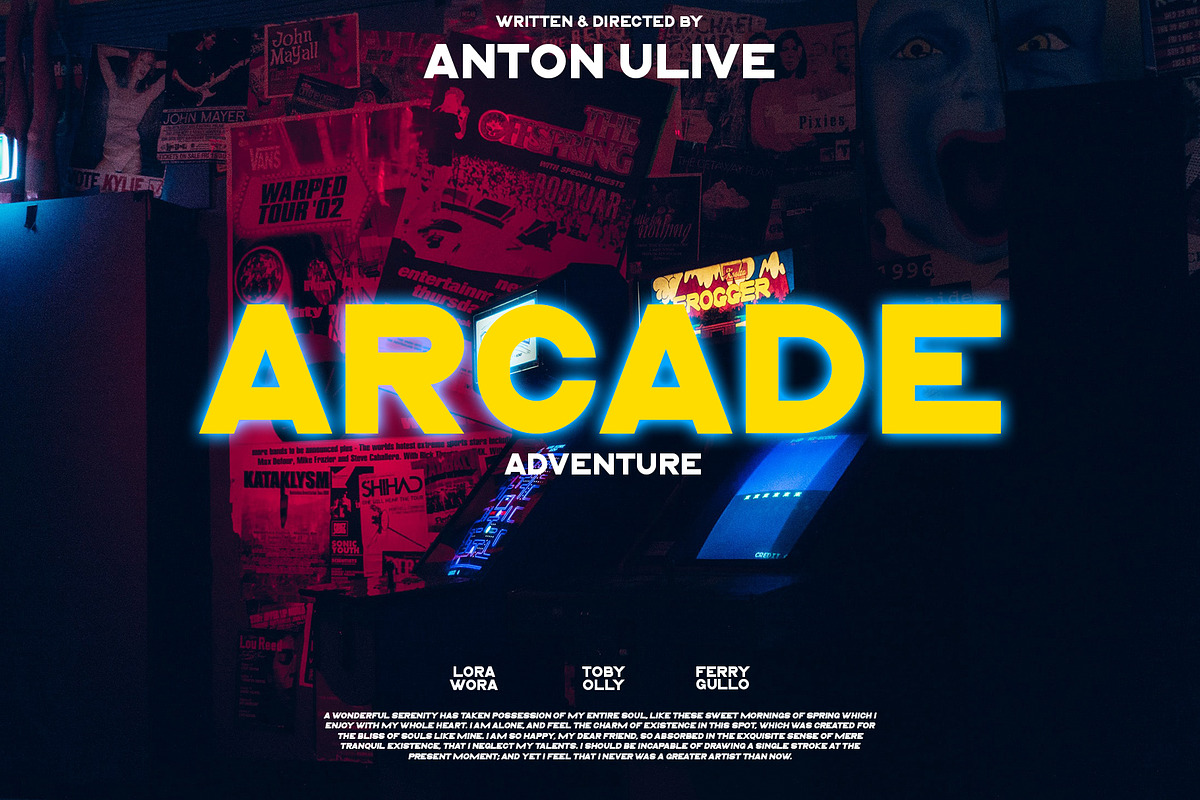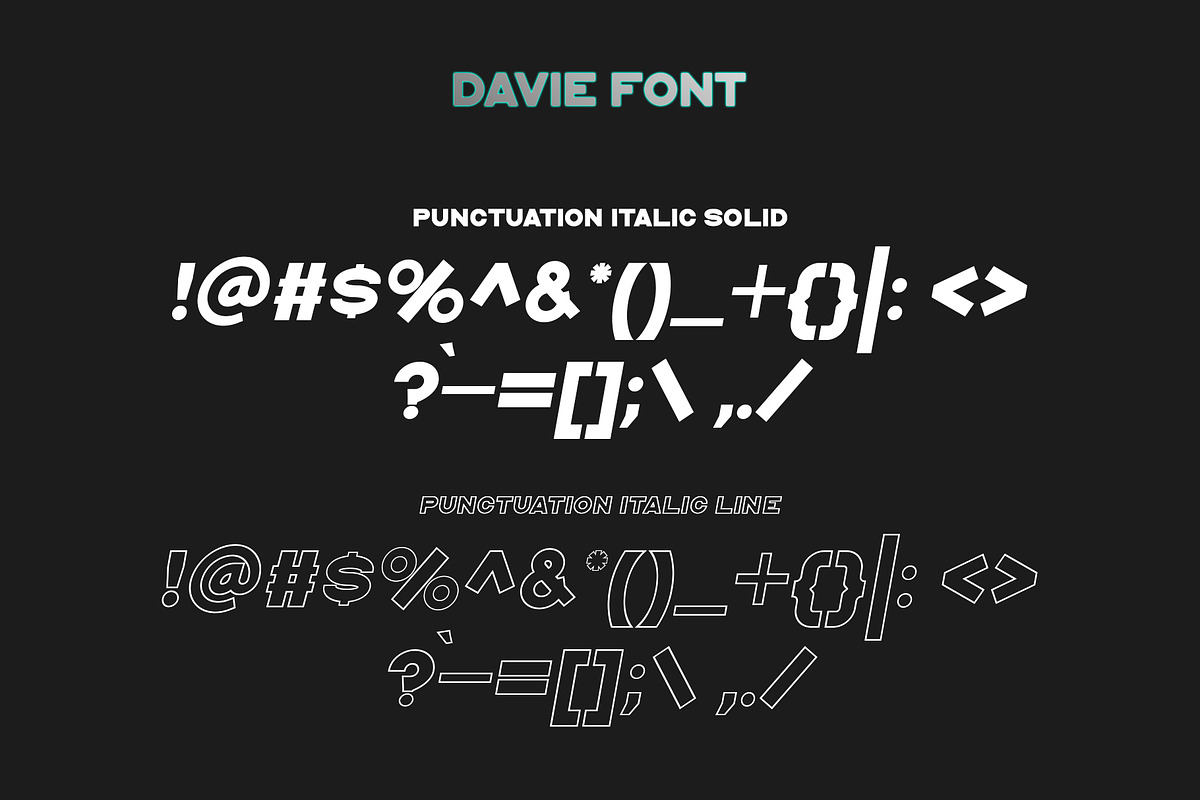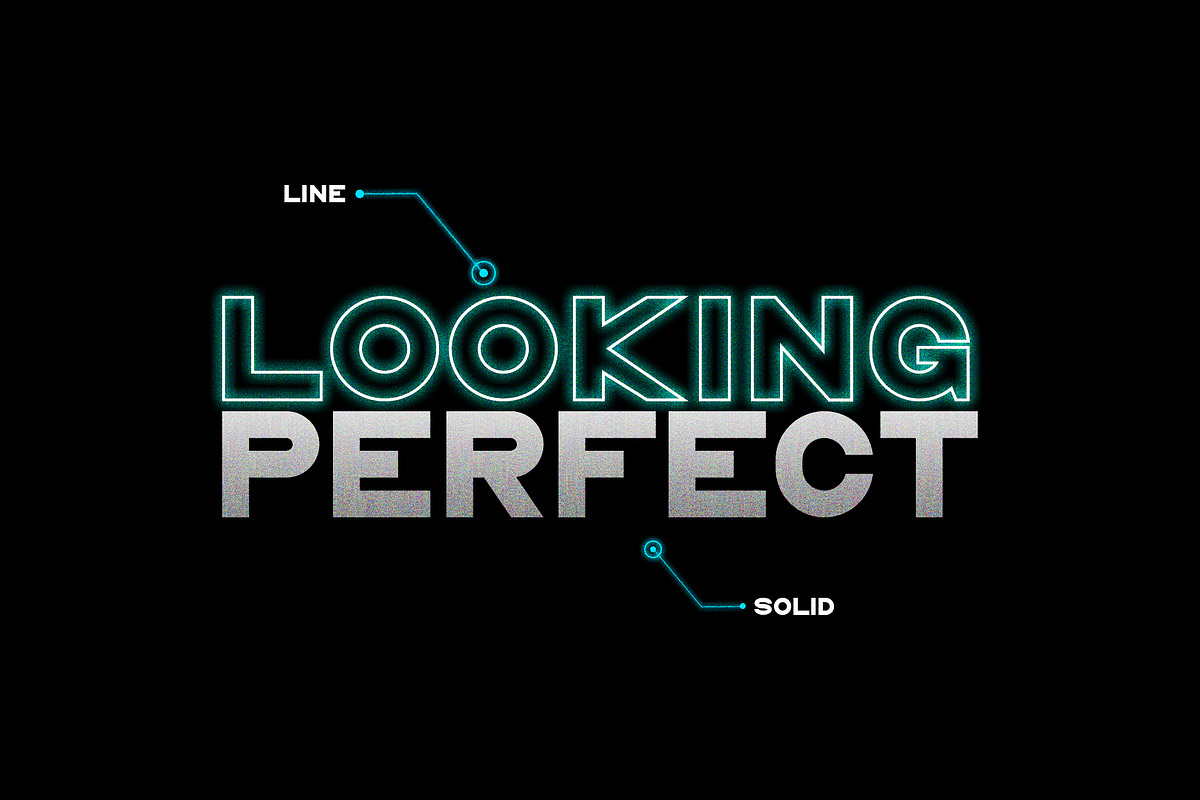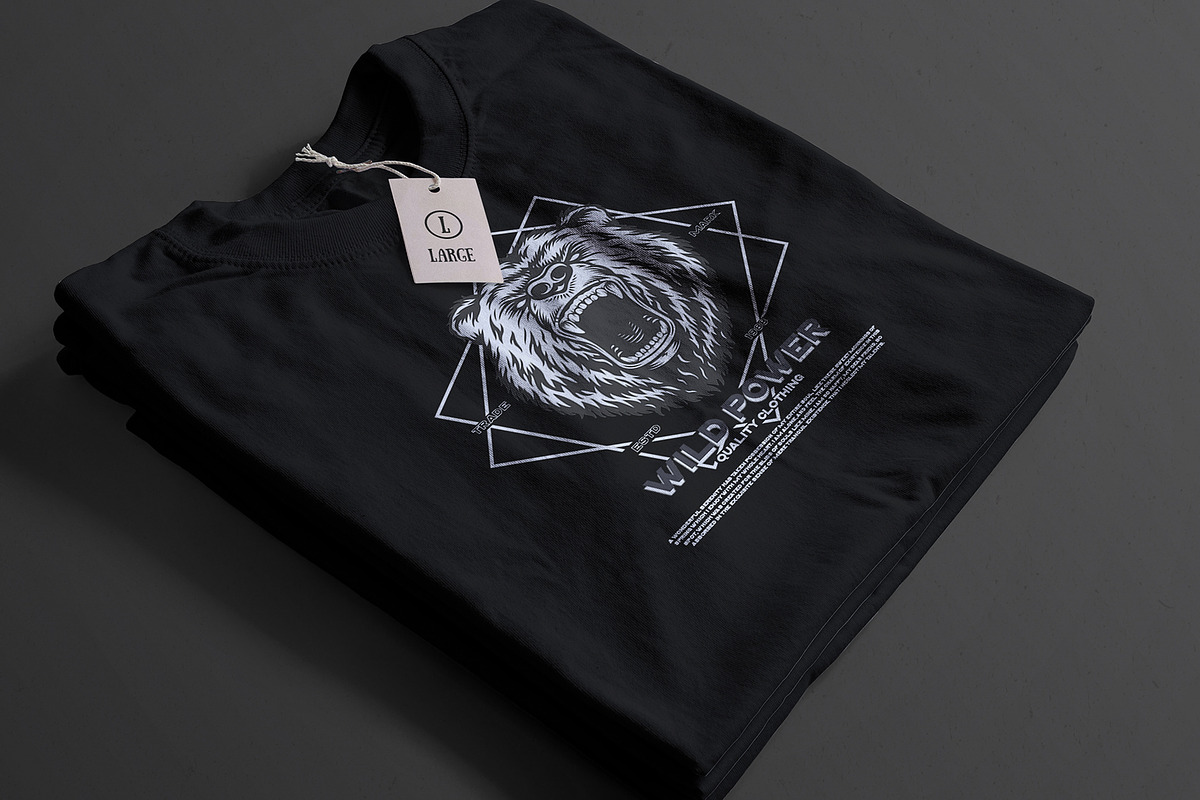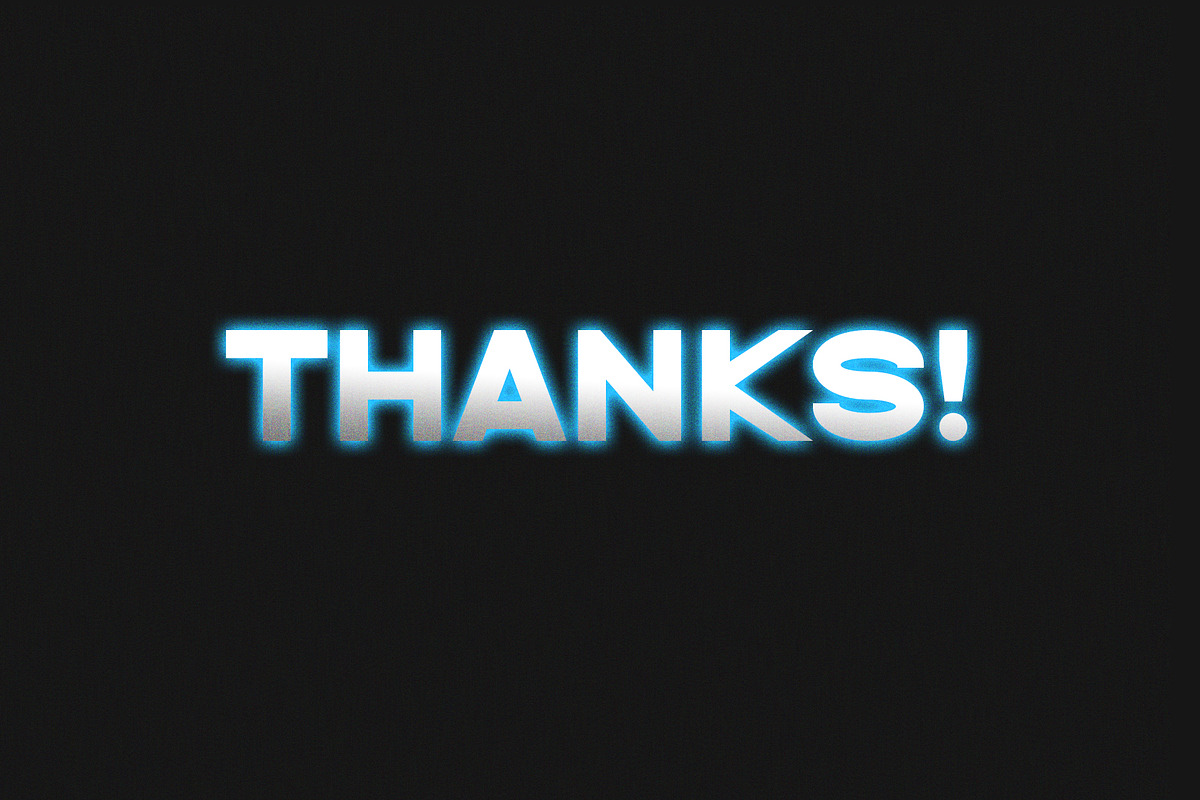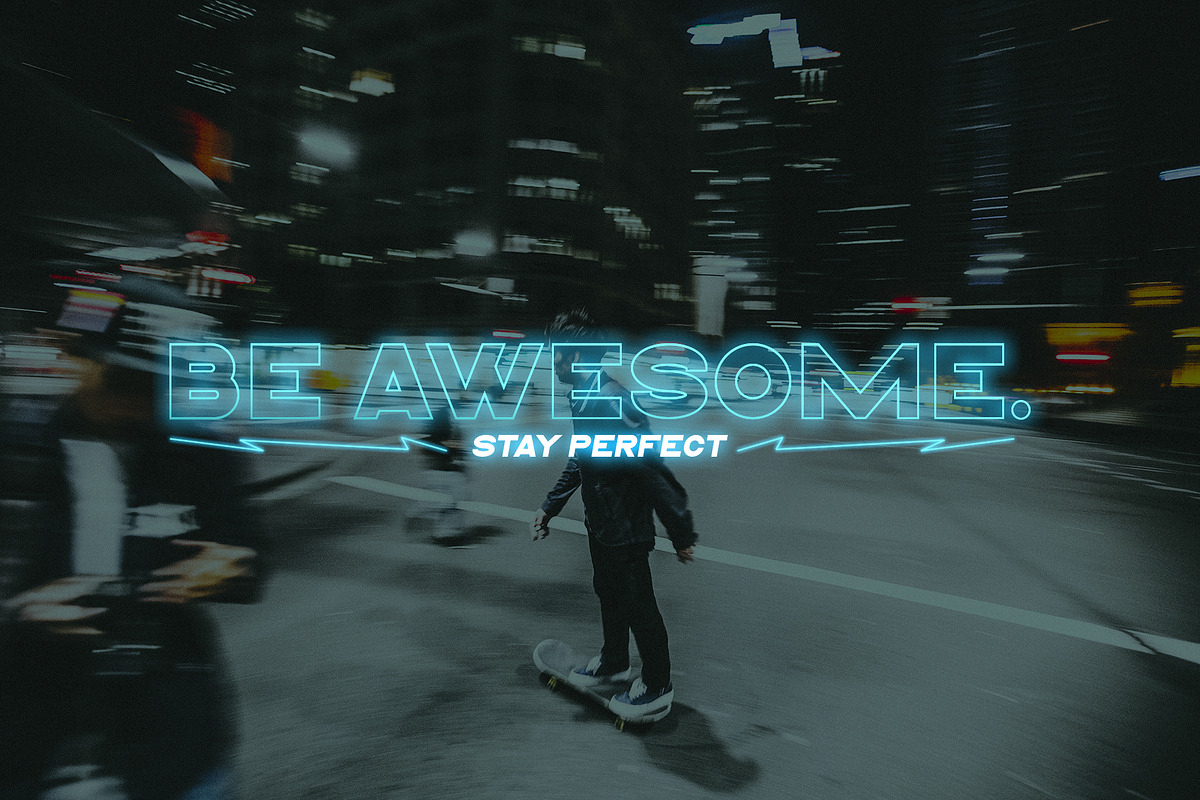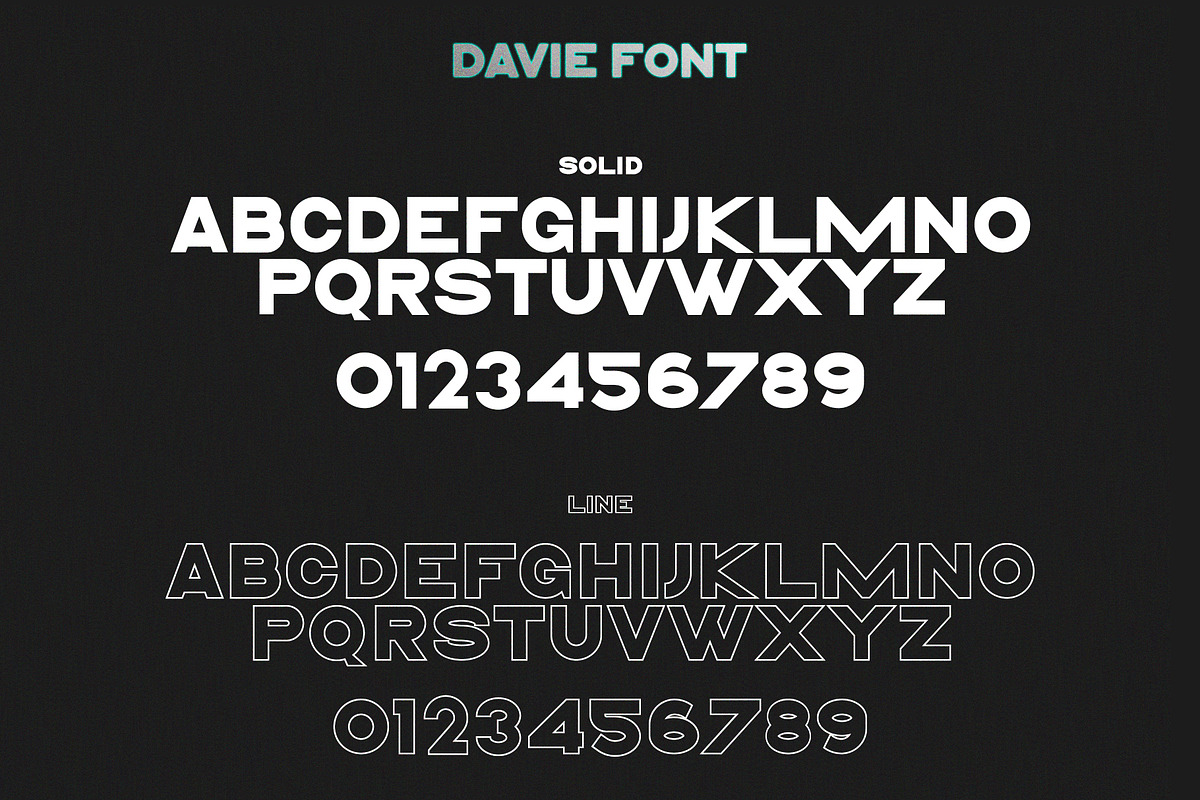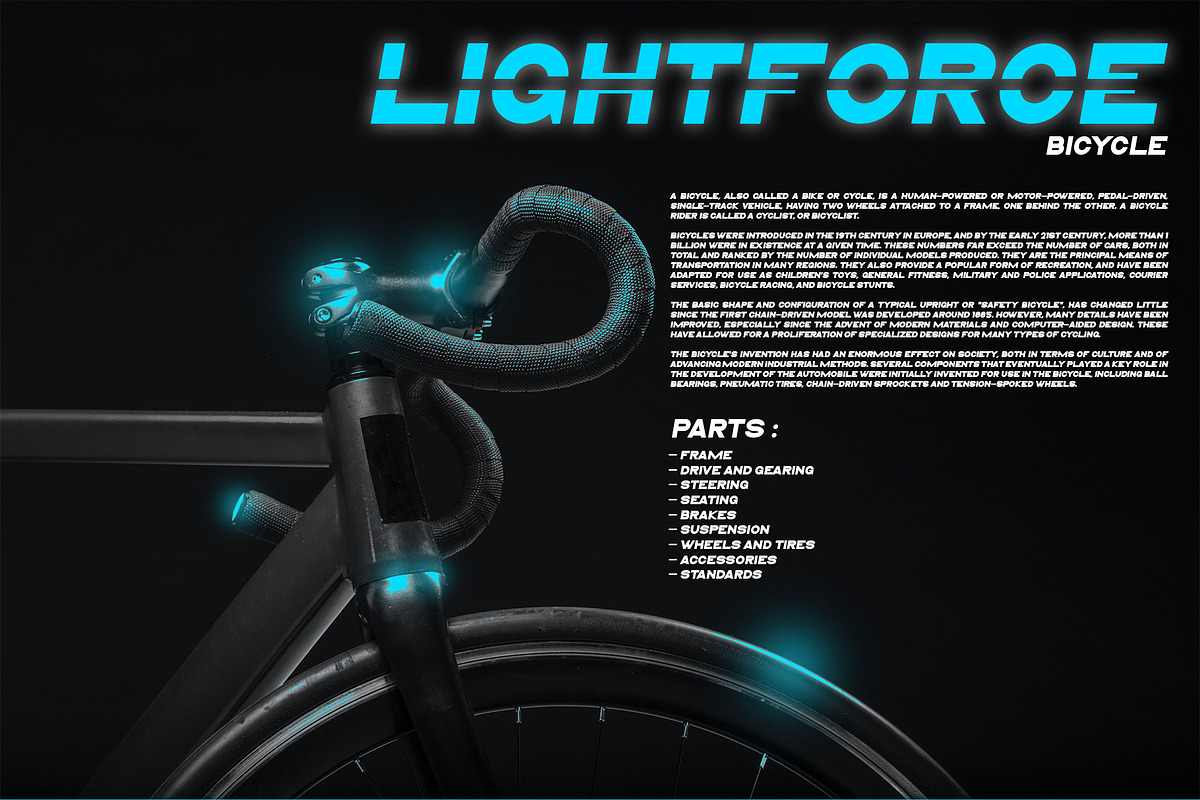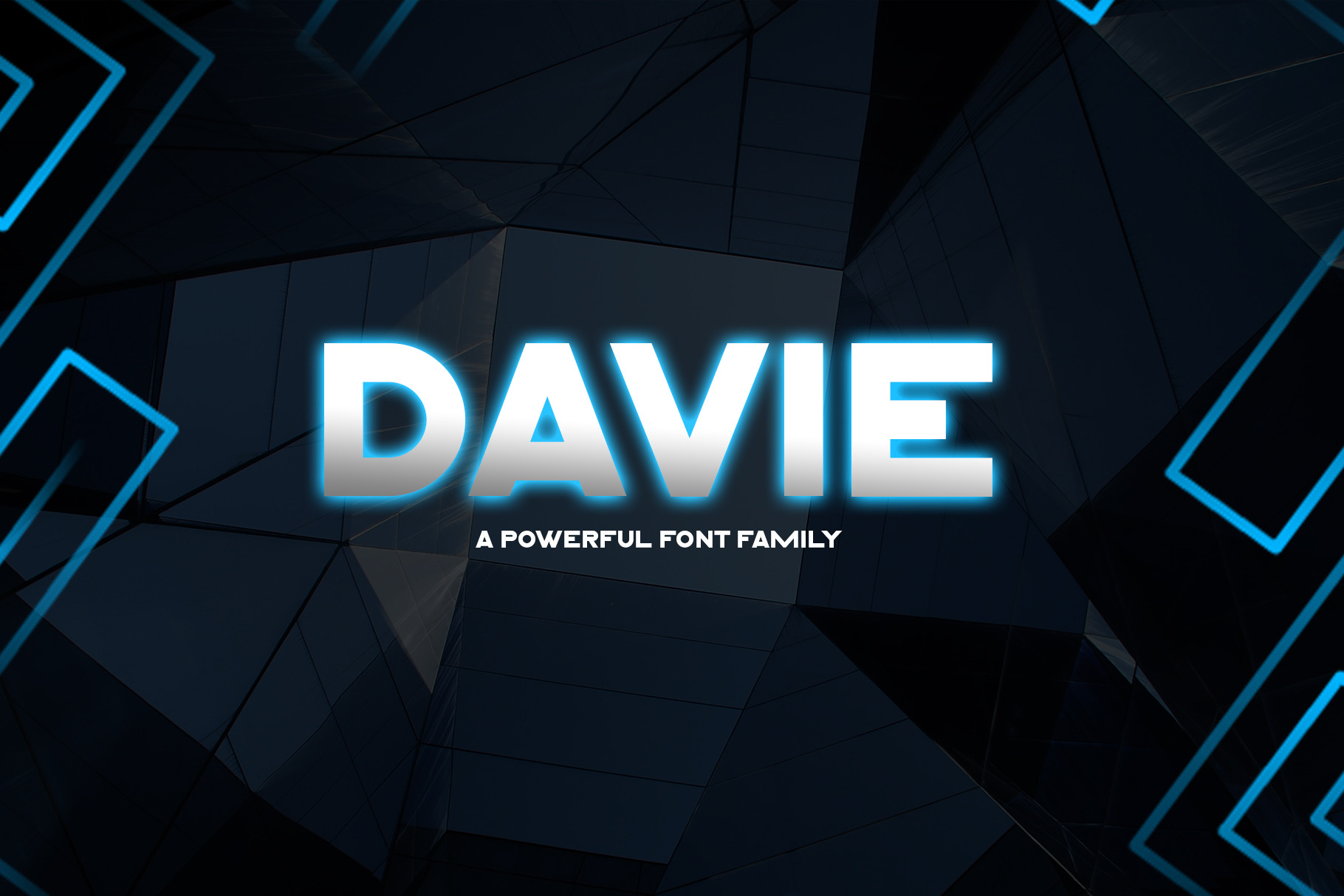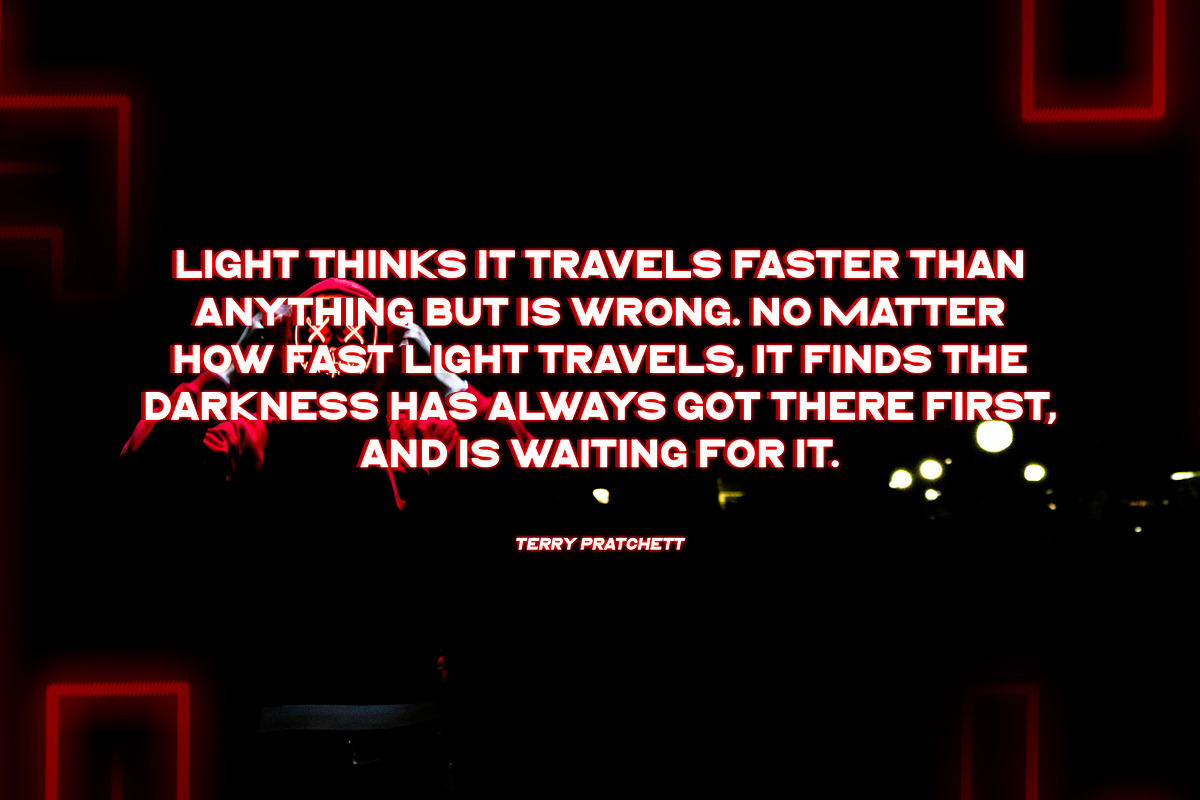
Davie || Powerful Font Family
Davie is a poweful font for important titles or names. Davie font family includes: 4 (four) style.
Davie will perfect for many project: fashion, magazines, logo, branding, photography, invitations, wedding invitation, quotes, blog header, poster, advertisements, postcard, book, websites, etc.
Davie includes four fonts - solid, solid italic, line, line italic. All offer wide language support, upper and lower cases, numerals and extended punctuation.